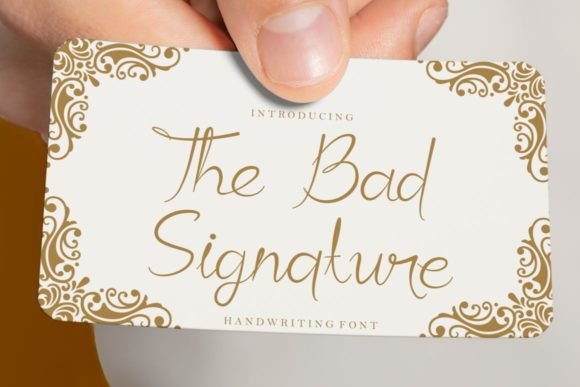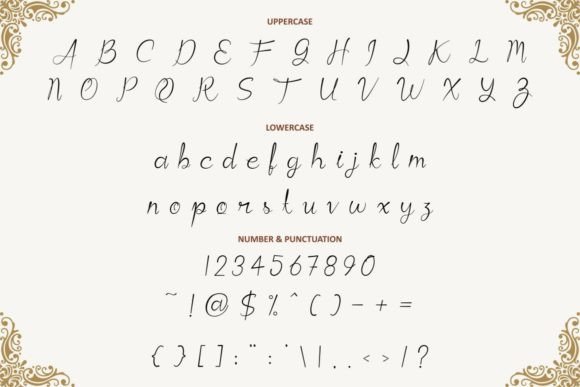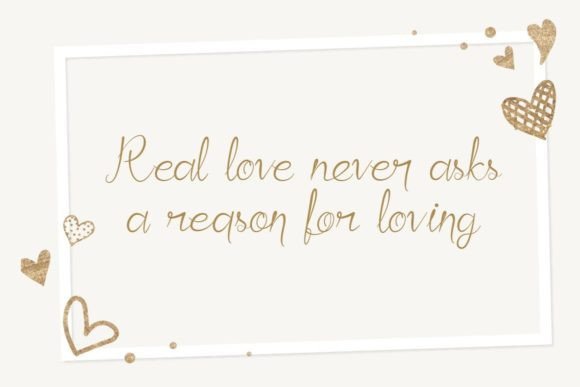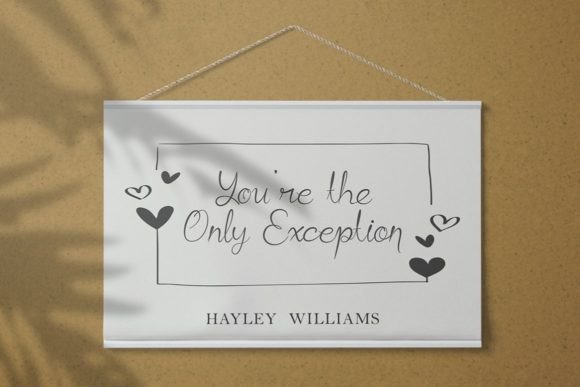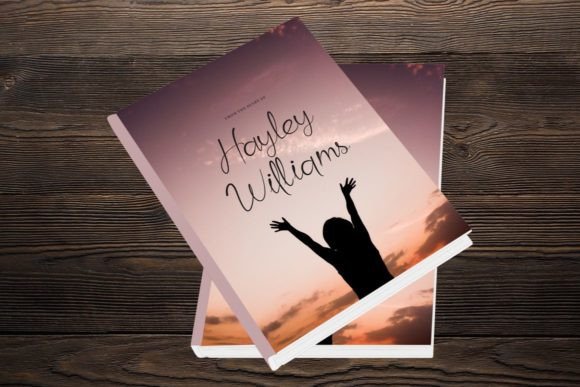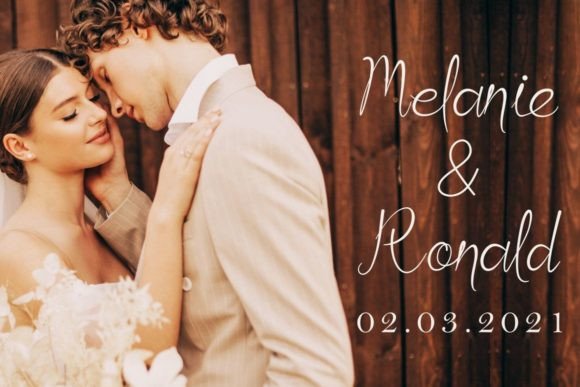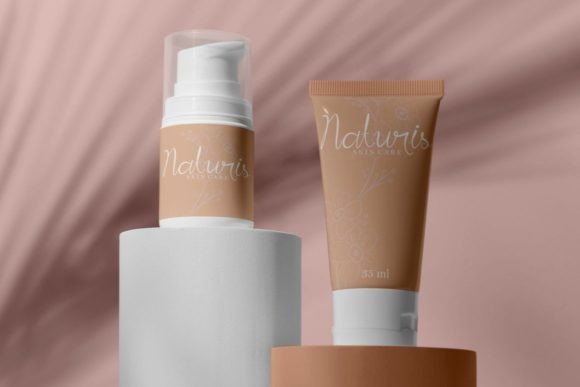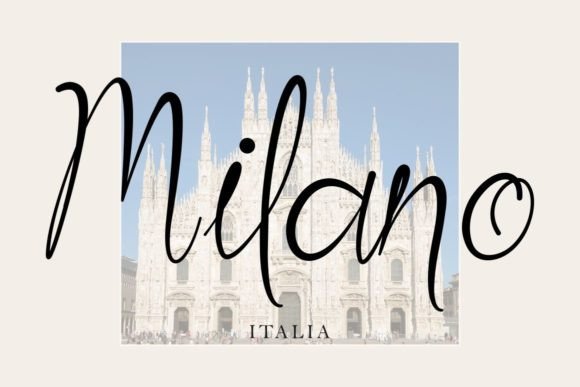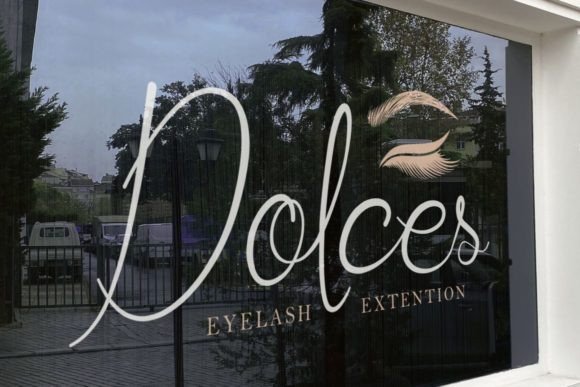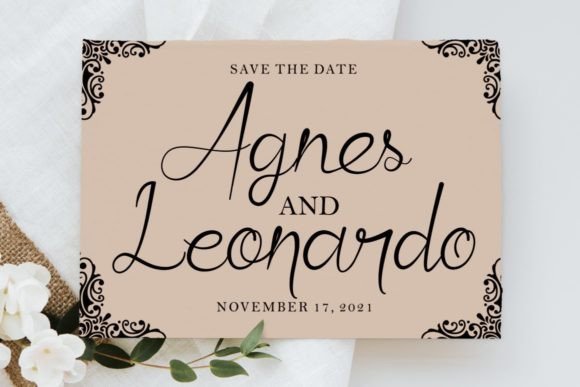
The Bad Signature Font
About The Bad Signature Font
“The Bad Signature” is a striking script font that exudes a sense of dazzle and sophistication. With meticulous craftsmanship and intricate detailing, this font is a valuable addition to your font library. Regardless of the subject matter or design project, “The Bad Signature” possesses the potential to elevate and enhance any creative endeavor.
The allure of “The Bad Signature” lies in its ability to convey a feeling of elegance and meticulous artistry. Each character is thoughtfully designed, and the font as a whole exudes a sense of refinement and glamour. Imagine using “The Bad Signature” for a high-end event invitation or a luxury brand’s logo, where the font itself becomes a symbol of opulence and style.
For quotes, greeting cards, branding, product packaging, and a variety of design applications, “The Bad Signature” adds a touch of class and beauty that elevates your content. It possesses a timeless quality that can make your projects feel truly special.
In summary, “The Bad Signature” is more than just a font; it’s a design asset that brings elegance and sophistication to your creative work. Its meticulously detailed script style and versatility make it suitable for a variety of applications, and its ability to convey opulence and beauty sets it apart. With “The Bad Signature” in your font collection, your design projects will radiate a sense of timeless glamour and style that leaves a lasting impression.